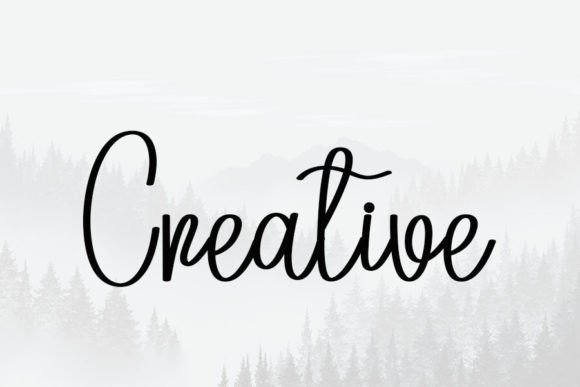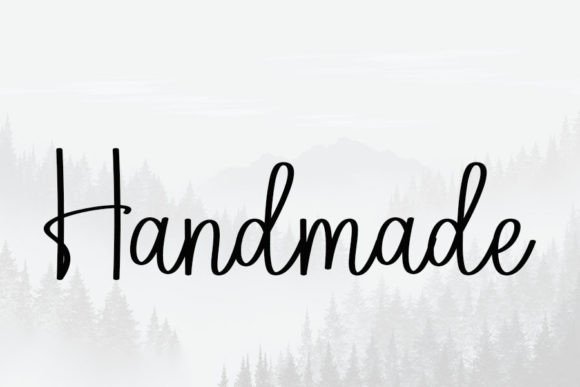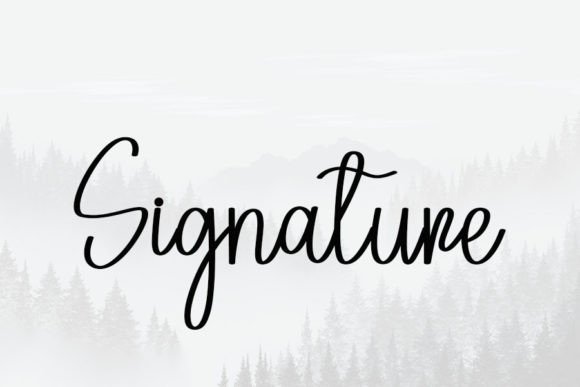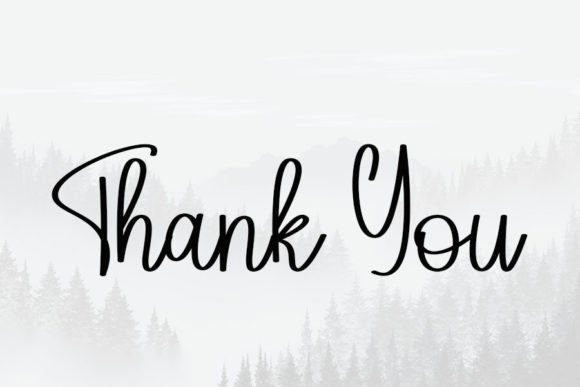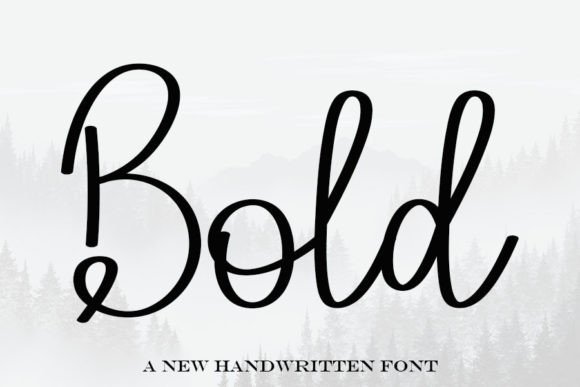
Introducing Bold Font: The Elegant Handwritten Font for Stunning Designs
Are you tired of using the same old fonts for your projects? Look no further! Bold font is a beautiful handwritten font that adds an elegant touch to any design. With its incredibly distinct and timeless style, it’s perfect for designers and crafters who want to create spectacular designs that stand out from the crowd.
What is Bold Font?
Bold font is a neat and beautiful handwritten font that exudes elegance and sophistication. Its unique style is characterized by flowing lines, subtle curves, and a touch of whimsy, making it perfect for a wide range of design projects. Whether you’re creating a logo, a poster, or a social media graphic, Bold font is sure to add a touch of class and refinement.
Key Features of Bold Font
- Elegant and Refined: Bold font has an incredibly distinct and timeless style that adds an elegant touch to any design.
- Handwritten with Love: This beautiful handwritten font is perfect for designers and crafters who want to add a personal touch to their projects.
- Versatile: Bold font can be used for a wide range of design projects, from logos and posters to social media graphics and more.
- Easy to Read: Despite its elegant and refined style, Bold font is easy to read, making it perfect for designs that require a clear and concise message.
Why Use Bold Font?
There are many reasons why you should consider using Bold font for your next design project. Here are just a few:
- Add a Touch of Elegance: Bold font adds an elegant touch to any design, making it perfect for projects that require a level of sophistication.
- Stand Out from the Crowd: With its unique and timeless style, Bold font is sure to make your design stand out from the crowd.
- Perfect for Branding: Bold font is perfect for branding projects, such as logos and business cards, where a level of elegance and sophistication is required.
- Easy to Pair: Bold font is easy to pair with other fonts, making it perfect for designs that require a combination of fonts.
Tips for Using Bold Font
Here are a few tips for using Bold font in your design projects:
- Use it as a Header Font: Bold font is perfect for use as a header font, where its elegant and refined style can really shine.
- Pair it with a Sans-Serif Font: Pairing Bold font with a sans-serif font, such as Arial or Helvetica, creates a nice contrast and adds visual interest to your design.
- Experiment with Colors: Bold font looks great in a variety of colors, so don’t be afraid to experiment and find the perfect color for your design.
- Use it for Emphasis: Bold font is perfect for use in designs where you want to draw attention to a particular element, such as a call-to-action button.
In conclusion, Bold font is a beautiful handwritten font that adds an elegant touch to any design. With its incredibly distinct and timeless style, it’s perfect for designers and crafters who want to create spectacular designs that stand out from the crowd. Whether you’re creating a logo, a poster, or a social media graphic, Bold font is sure to add a touch of class and refinement. So why not give it a try and see the difference it can make in your designs?